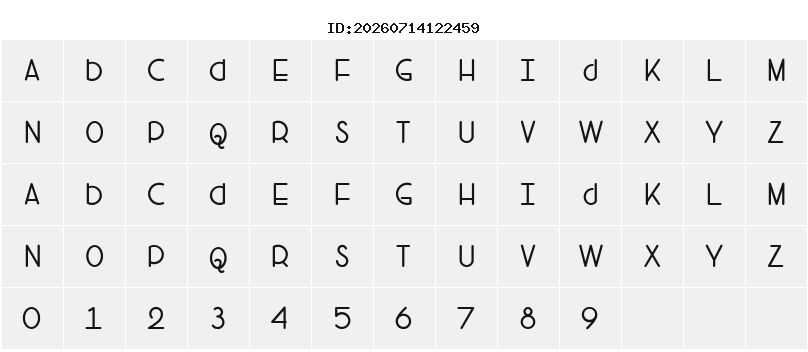
• Font Name: Head Versus Heart
• Designer: Misti's Fonts (Misti Hammers)
About Head Versus Heart.ttf
Head Versus Heart.ttf is a modern, elegant sans-serif font designed for ultimate readability and visual harmony. Perfect for branding, headlines, web design, and print materials.